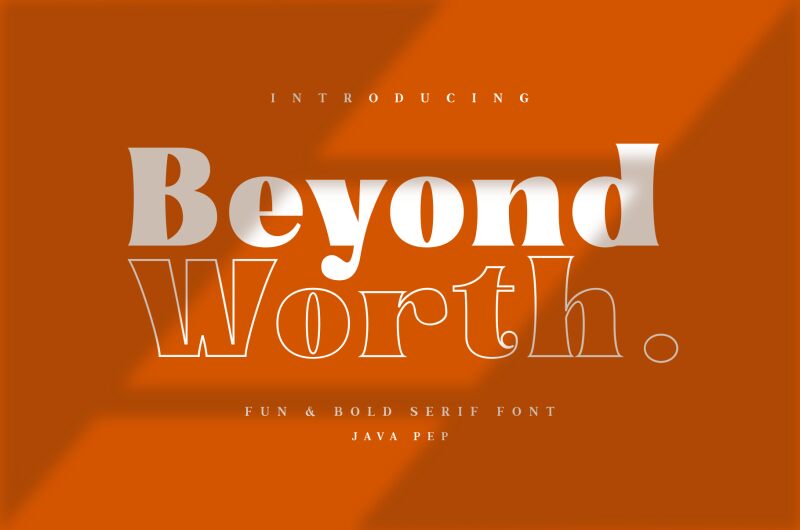
Beyond Worth Outline Regular
Discover Beyond Worth Outline, the latest addition to the Beyond Worth font family designed by Java Pep. This outlined serif font combines a fun and bold style, adding a touch of elegance to your projects. With its regular and outline styles, you can effortlessly mix and match for your design needs.
Whether it's headlines, titles, logotypes, or branding materials, Beyond Worth is perfect for creating outstanding and attention-grabbing text. Its semi-expanded width further enhances its versatility and makes it suitable for various purposes.
Elevate your designs with the dynamic appeal of Beyond Worth Outline!